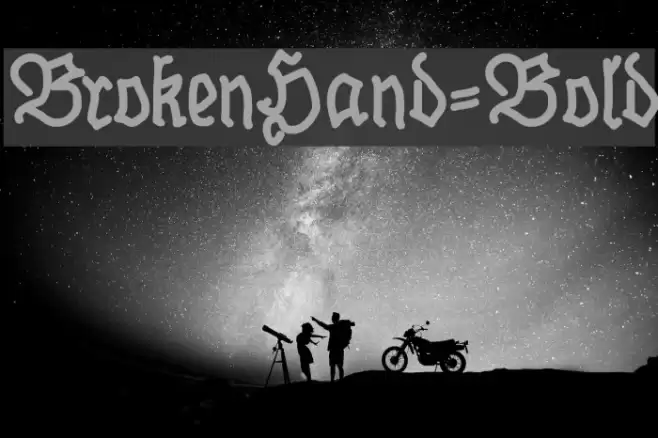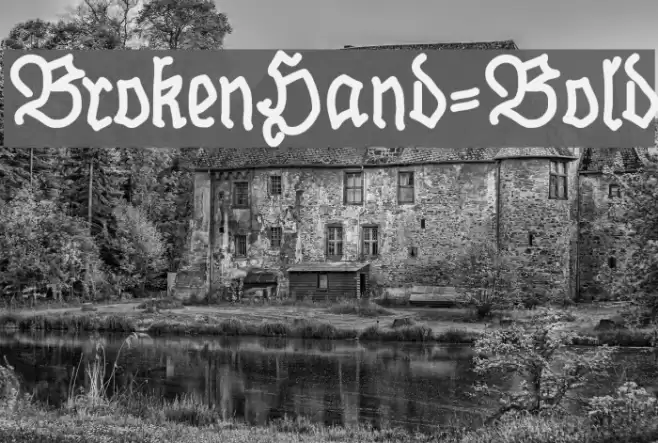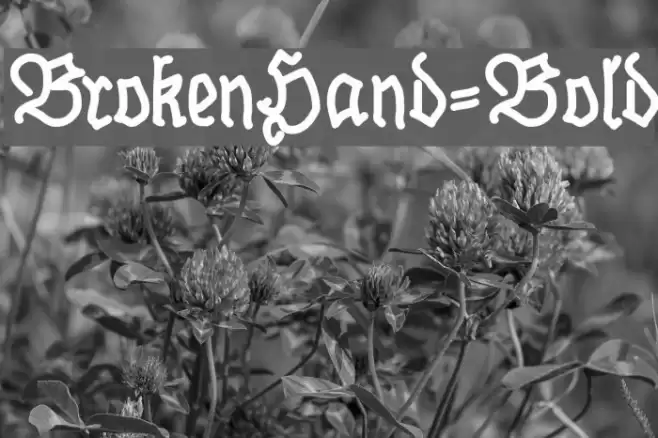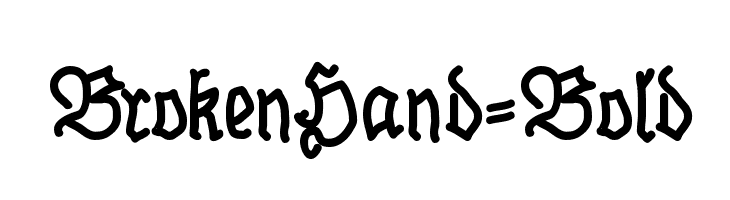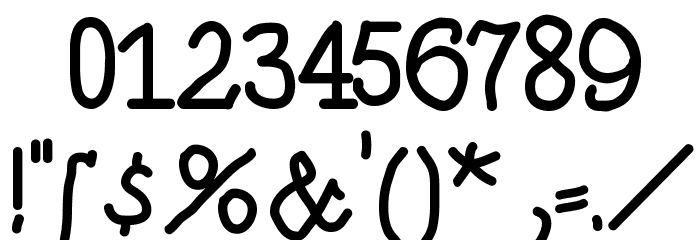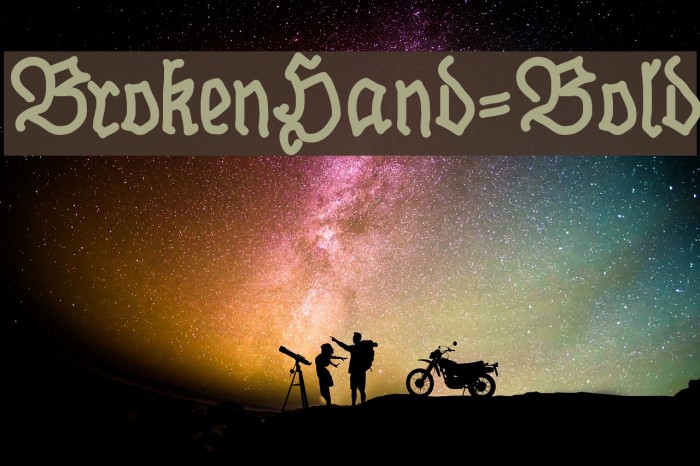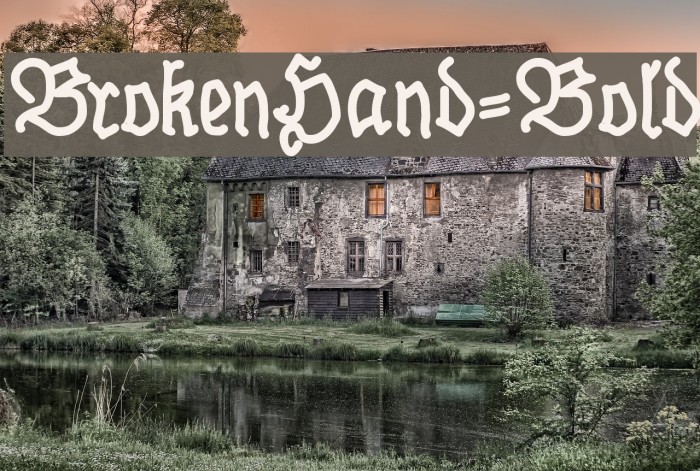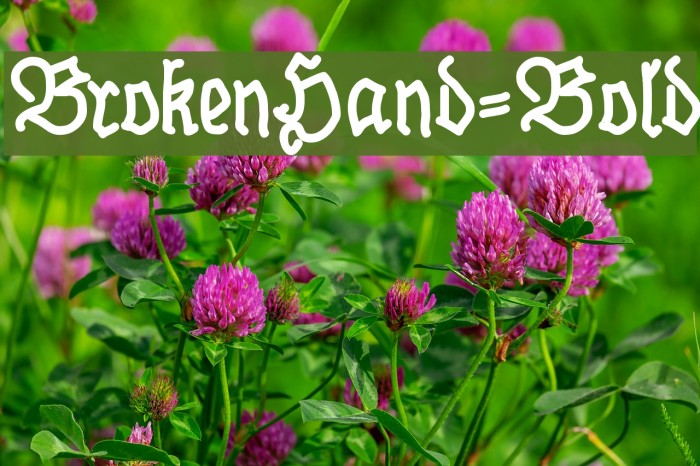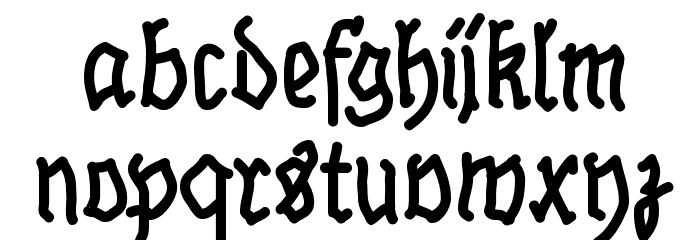
BrokenHand-Bold Font
BrokenHand-Bold Description
This font features a bold, decorative style with a hand-drawn appearance. The uppercase letters are ornate and intricate, with a medieval flair that suggests a historical or fantasy theme. The lowercase letters maintain the decorative style but are slightly more subdued, offering a balance between readability and artistic expression. The numerals are bold and consistent with the overall style, ensuring they stand out while maintaining harmony with the alphabet. Special characters are creatively designed, adding to the font's unique personality. This font is ideal for projects that require a distinctive, eye-catching typeface with a touch of elegance and historical charm.
A bold, decorative font with a hand-drawn, medieval-inspired style from Uncategorized fonts.
- Proposed Projects: Perfect for fantasy book covers, themed event invitations, historical posters, and branding that requires a unique, artistic touch.